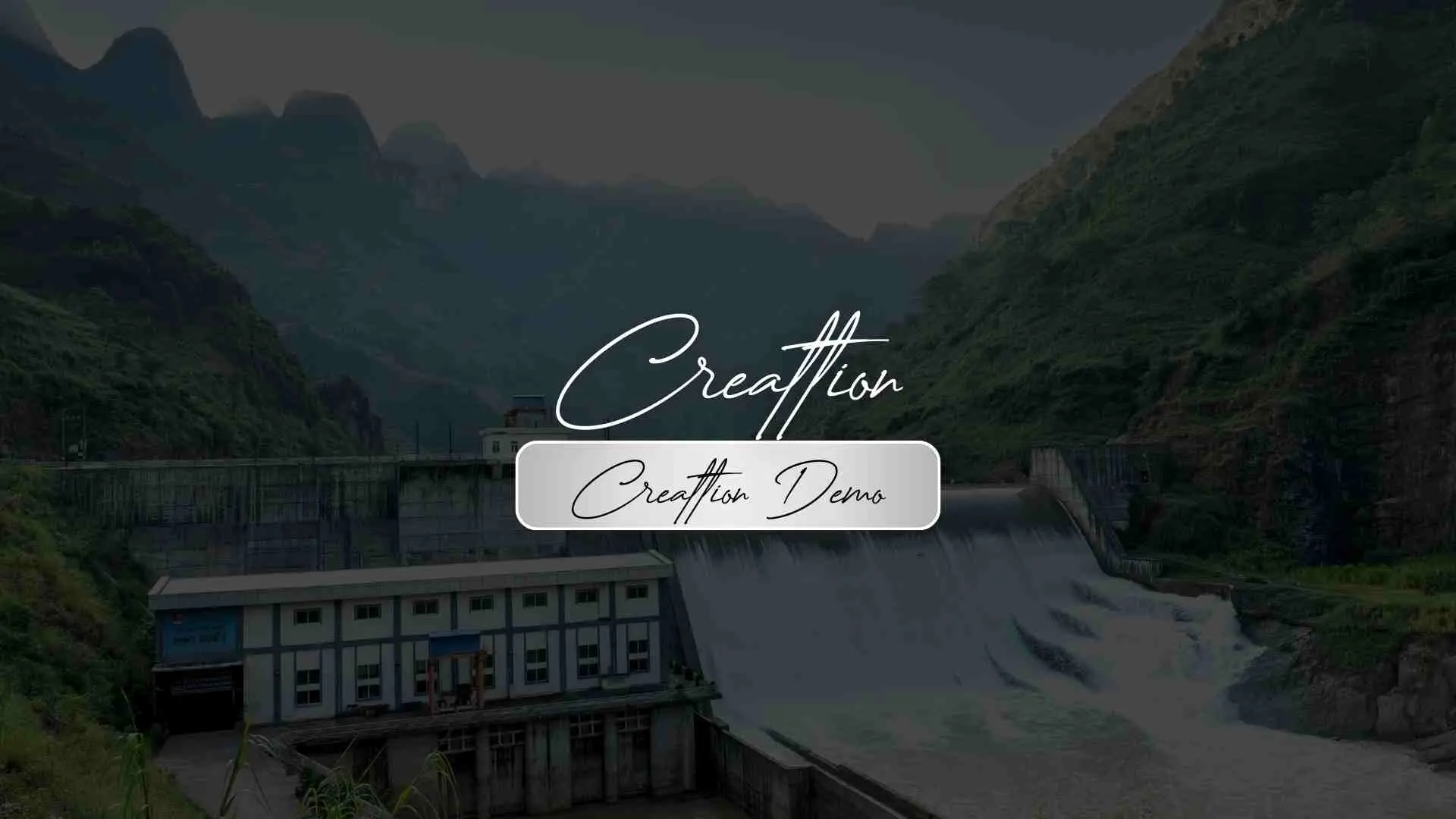
The font Creattion Demo, designed by GlyphStyle, falls under the Script category & Creattion font family. Its smooth, flowing letterforms make it a versatile choice for projects that require both elegance and readability. Creattion is particularly well-suited for Packaging and Labels, Invitations and Stationery, Social Media Graphics and Posters, Branding and Logos and Watermarks and Photography. With its balance of simplicity and decorative appeal, this font brings a polished touch to both personal and professional designs.